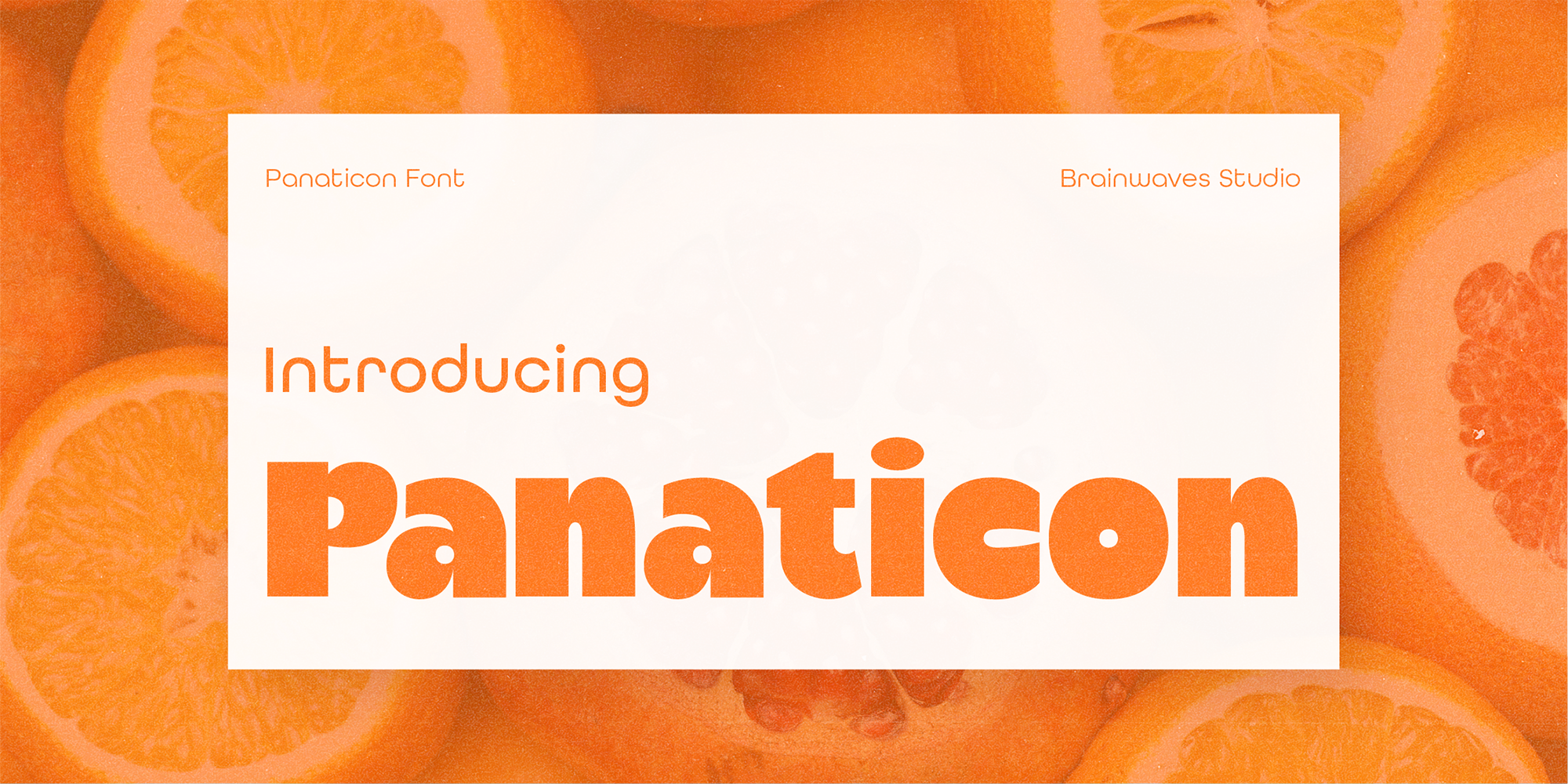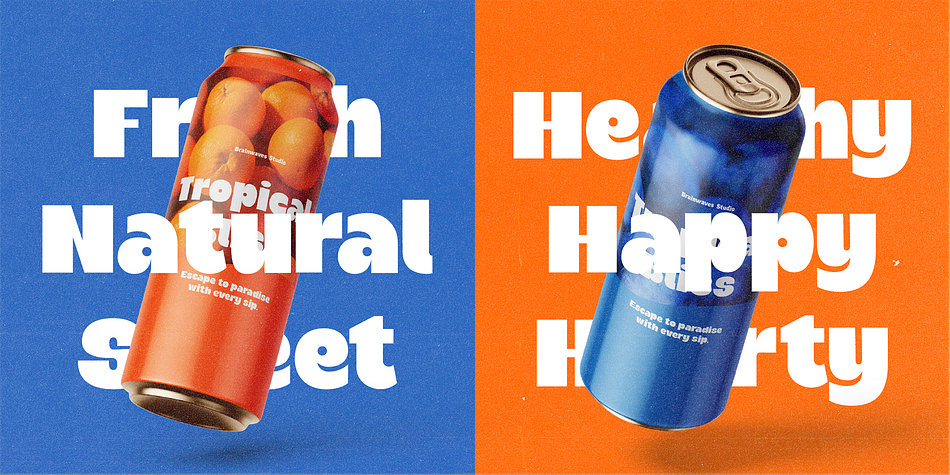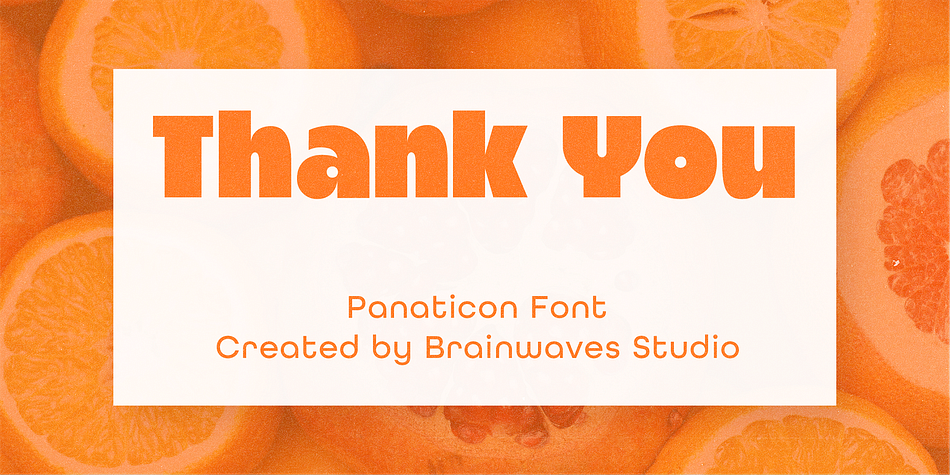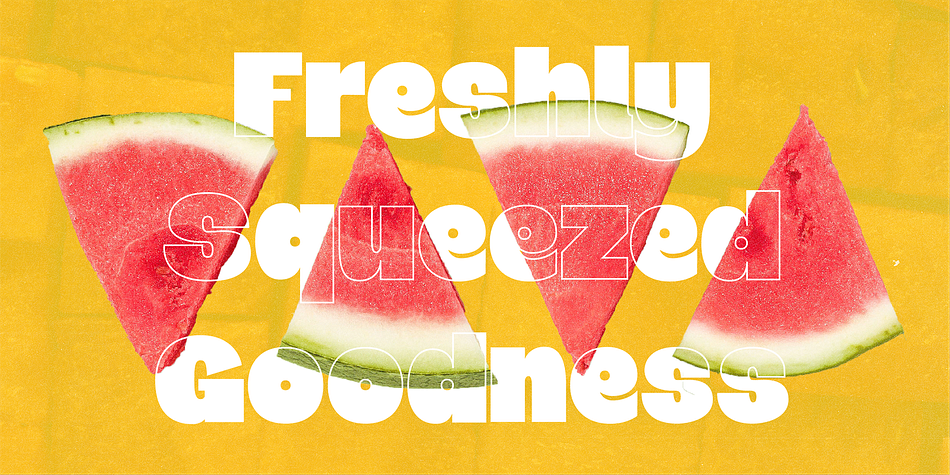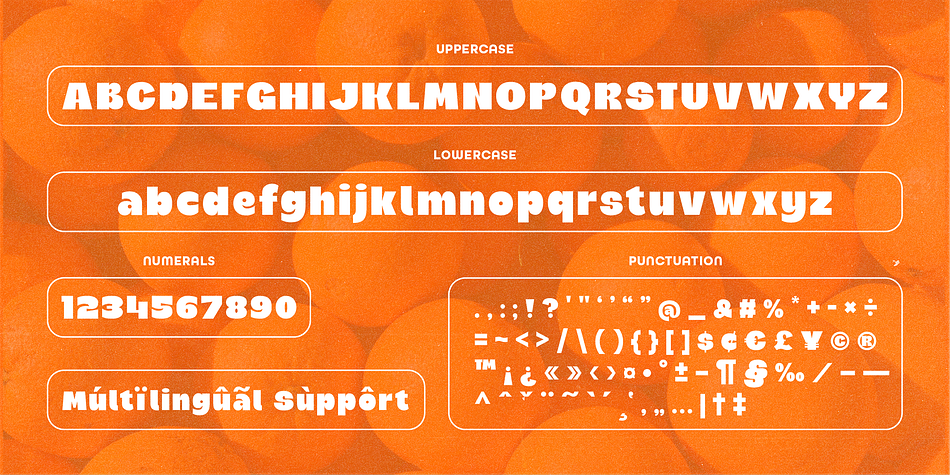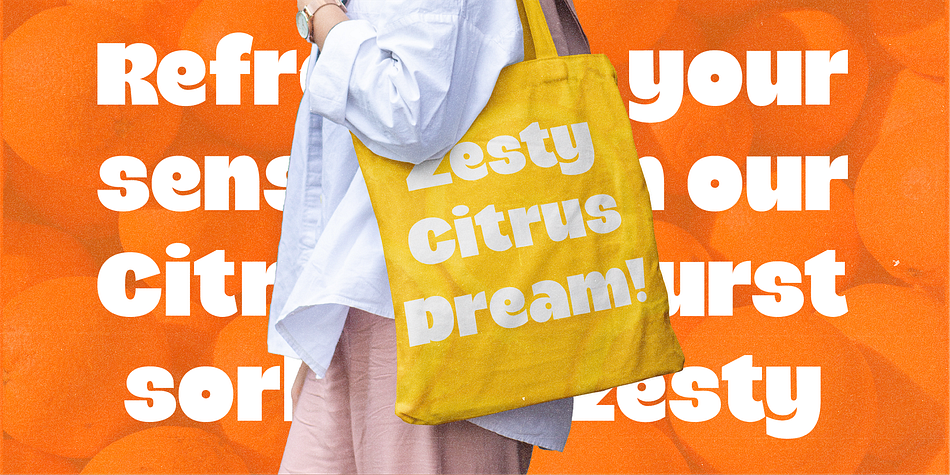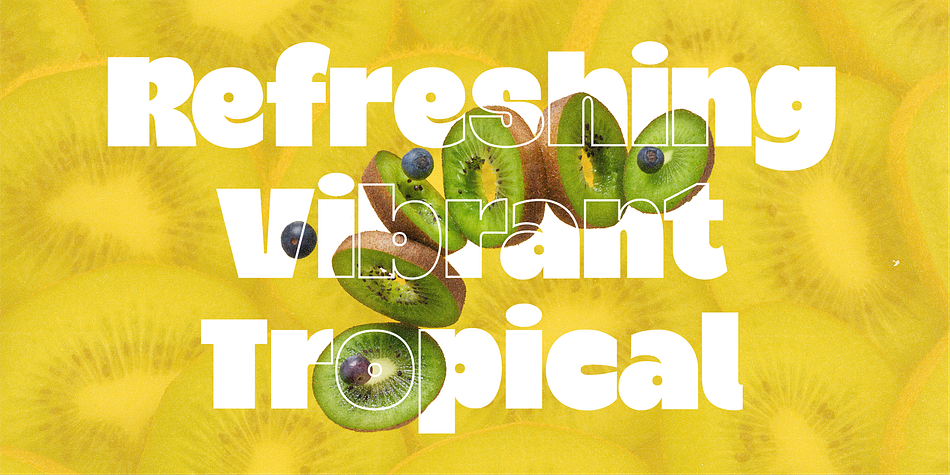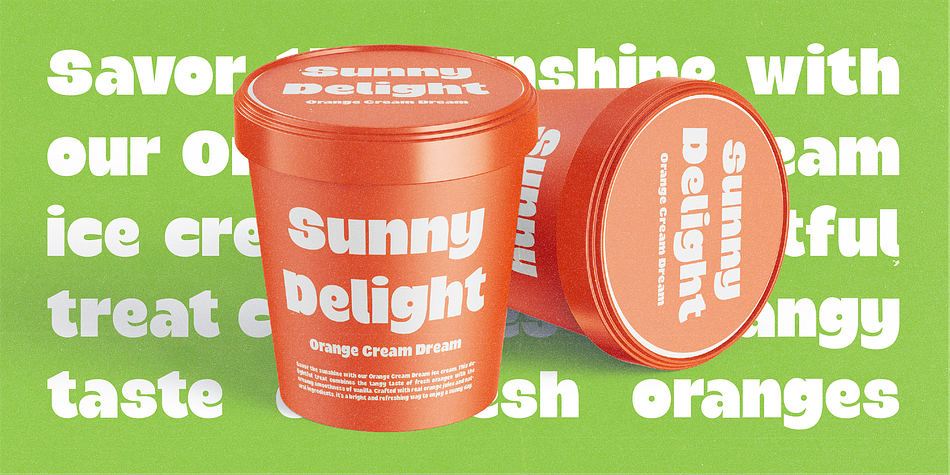
Panaticon
Designed by Lucky Fitriadi, Panaticon is a retro font family. This typeface has two styles and was published by Brainwaves Studio.
Panaticon Modern Retro Font is a unique typeface that masterfully fuses the nostalgic charm of retro design with sleek, contemporary elements. This font is designed to bring a touch of the past into modern contexts, creating a distinctive and versatile look for a wide range of projects.